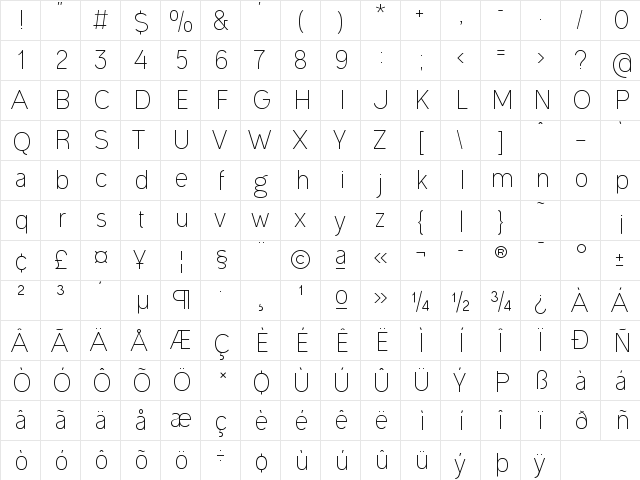
Ogonek Light Regular
| Foundry | Levi Szekeres |
| Designer | Levi Szekeres |
Design Context for Ogonek Light Typeface
Ogonek Light takes a measured approach to typography — its balanced proportions and neutral character make it a reliable workhorse for both digital and print work. The delicate stroke weight brings airiness and refinement to layouts.